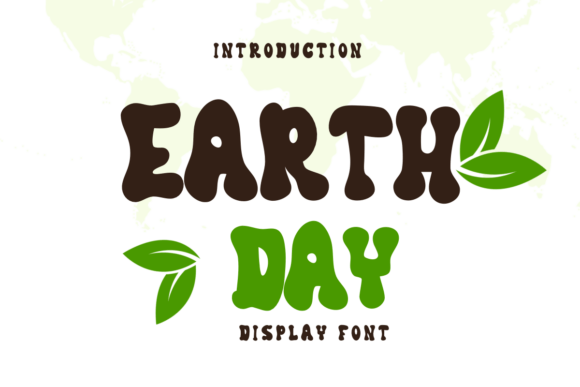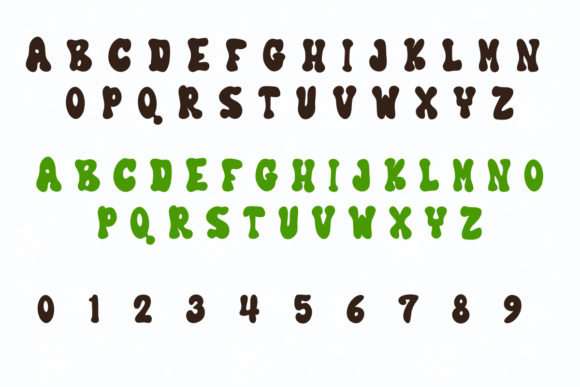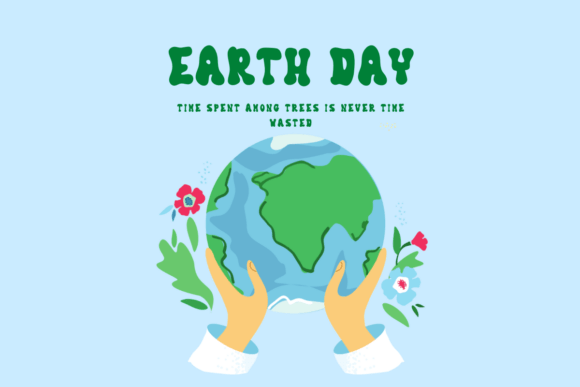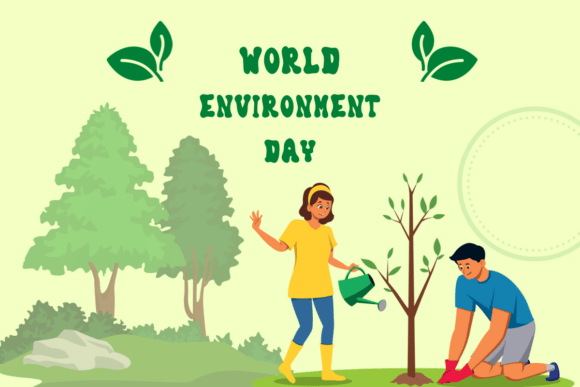
About the Earth Day Font Font
Welcome to the world of Earth Day Font Font, a typeface that will inspire your next great project. Friends is a natural display font. You can use it for taking notes, writing a diary, or making greeting cards. However, you can still use it for other designs, such as banners, content, mugs, cards, shirts, stationery, social media posts, and more!
Earth Day Font’s natural, slightly informal style makes it ideal for headlines, short-form content, and branding projects emphasizing approachability and environmental consciousness. It works well on packaging, posters, and social media graphics where its friendly personality shines. However, its less-than-optimal x-height makes it unsuitable for body text or UI elements requiring high readability over extended lengths.
Pairing Earth Day Font with a clean sans-serif like Lato or Open Sans for body copy provides excellent contrast and readability. For a more playful feel, consider a script font such as Great Vibes, but use it sparingly as an accent. A geometric sans-serif like Montserrat could also offer a modern counterpoint.
The font’s overall personality is friendly and approachable, making it a strong choice for brands focused on sustainability, nature, or handcrafted goods. Its organic forms lend a sense of warmth and authenticity.